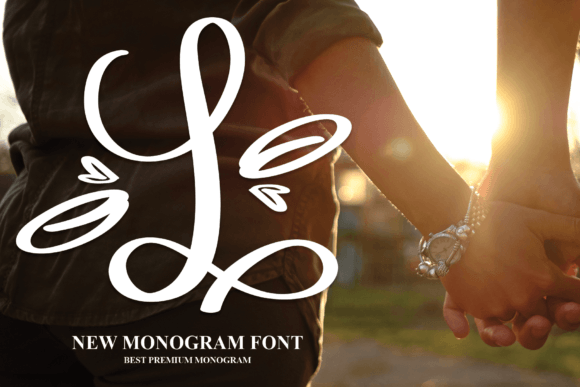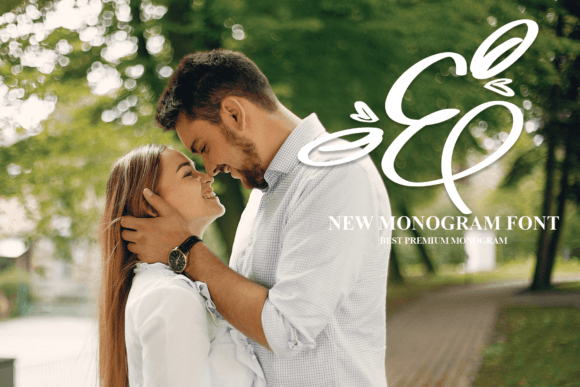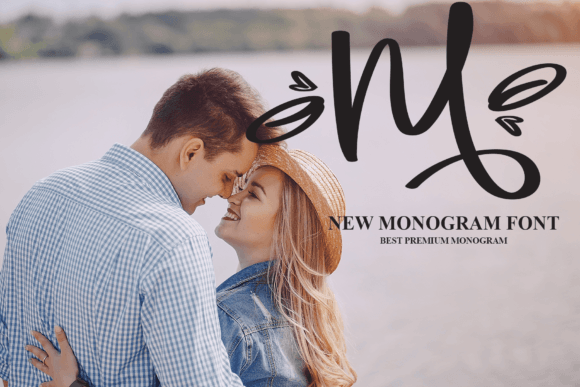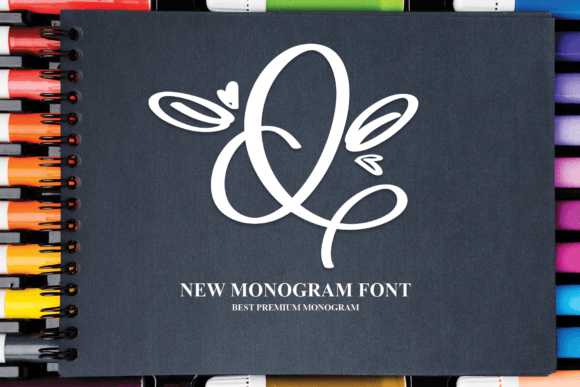
Love Monogram Font
About the Love Monogram Font
The Love Monogram Font is here to transform your projects with its distinctive character and style. Love Monogram is a fresh and highly detailed decorative font. Add this beautiful-looking font to any of your favorite love letters, wedding invitations, or design ideas, and you’ll be surprised at the results.
Love Monogram’s ornate style is ideally suited for headlines, short text blocks on invitations, or logos requiring a touch of vintage elegance. Its high detail makes it less effective for body text or UI elements where readability is paramount. Avoid using it for large quantities of text or in small sizes.
The font’s personality is undeniably romantic and classic. It would be a strong choice for branding related to weddings, boutiques, or luxury goods. Consider pairing it with a clean sans-serif like Montserrat for contrast, or a delicate script font like Great Vibes for a cohesive, luxurious feel.
For a more modern twist, a geometric sans-serif such as Futura would provide a striking counterpoint to Love Monogram’s elaborate forms.
Love Monogram Font Usage Examples
Love Monogram Font Example